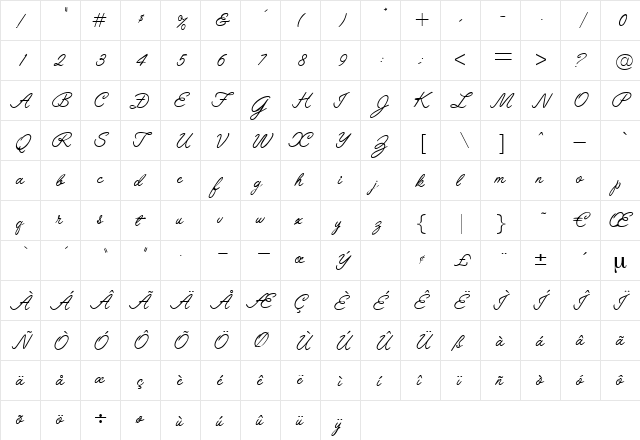
DanielScript Regular
Design Context for DanielScript Typeface
DanielScript flows with the natural rhythm of handwritten lettering, making it ideal for designs that call for warmth and personal expression.
Font Pairing: Combine DanielScript with a simple geometric sans for maximum contrast — the tension between flowing curves and clean structure is a classic typographic pairing.
Pro Tip: Use DanielScript for short runs of text — names, titles, or taglines. Extended body copy in script faces tires the eye quickly.